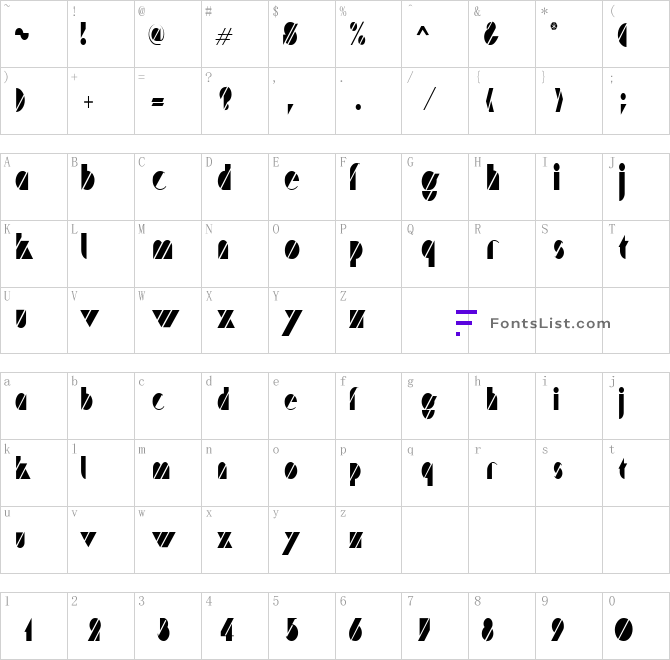
- Font Name:Cane-Condensed
Cane-Condensed-Normal.ttf is a very beautiful artistic font, Cane-Condensed-Normal.ttf is widely used in the design and printing of various books and pictures,Cane-Condensed-Normal.ttf has a strong visual impact,Cane-Condensed-Normal.ttf is a commonly used font in newspapers, magazines and books, and is used in posters, e-commerce Poster design, store design, logo design, font design and other fields.Cane-Condensed-Normal.